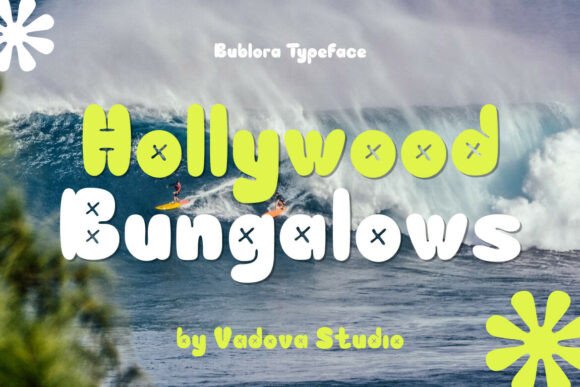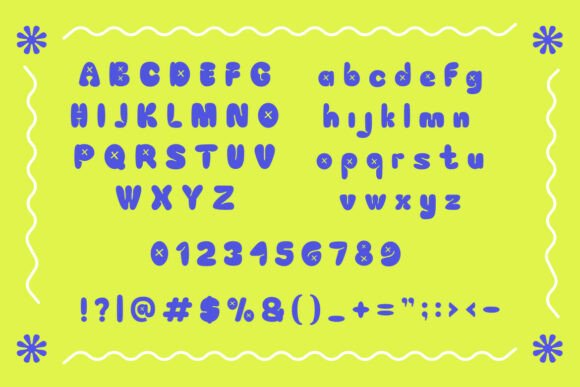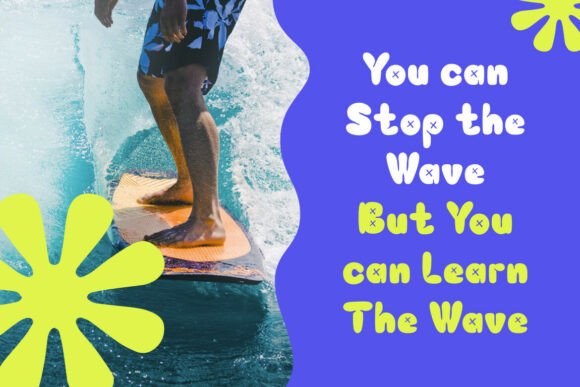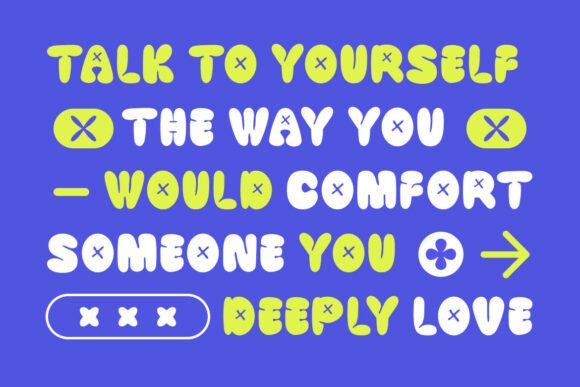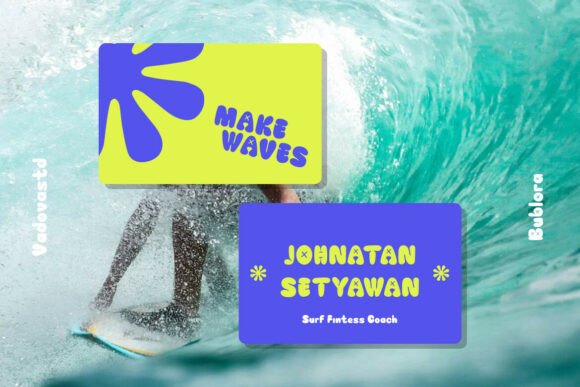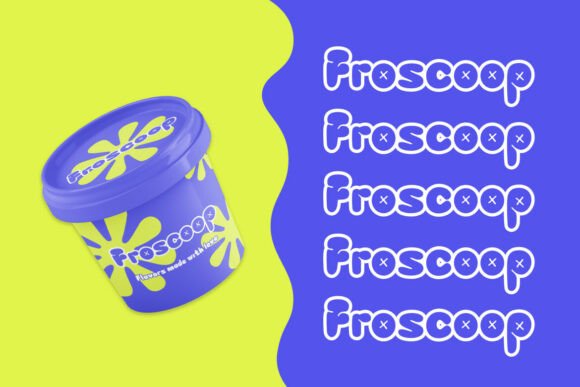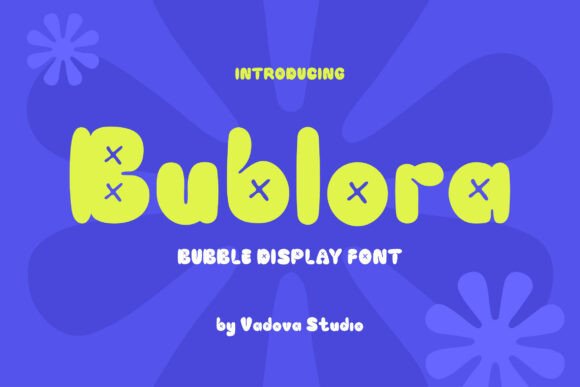
Bublora Font: Add a Pop of Personality to Your Designs
Are you tired of using the same old fonts in your designs? Do you want to add a touch of fun and personality to your projects? Look no further than Bublora Font! This exciting new font is the perfect choice for designers and crafters who want to bring a youthful and energetic vibe to their work.
The Personification of Fun
Bublora Font is the personification of fun, featuring chunky, inflated letterforms that feel like they were plucked right out of a colorful dream. The font’s soft, bouncy, and undeniably cheerful design makes it perfect for projects that need to feel youthful and energetic. Whether you’re working on sticker designs, vibrant posters, or playful brand identities, Bublora brings a lighthearted, “squishy” aesthetic that captures the eye instantly.
Bublora Font is versatile and can be used in a variety of projects, including:
- Sticker designs: Add a fun and playful touch to your stickers with Bublora’s chunky, inflated letterforms.
- Vibrant posters: Create eye-catching posters that demand attention with Bublora’s bold and cheerful design.
- Playful brand identities: Give your brand a youthful and energetic personality with Bublora’s unique and fun font.
- Crafting projects: Add a personal touch to your crafting projects, such as handmade cards, gift tags, and scrapbooking pages.
Key Features of Bublora Font
Bublora Font has several key features that make it a must-have for designers and crafters:
- Chunky, inflated letterforms: Bublora’s unique design features chunky, inflated letterforms that add a fun and playful touch to any project.
- Soft and bouncy: The font’s soft and bouncy design makes it perfect for projects that need to feel youthful and energetic.
- Undeniably cheerful: Bublora’s cheerful design is sure to bring a smile to anyone’s face.
- Lighthearted and “squishy” aesthetic: The font’s lighthearted and “squishy” aesthetic makes it perfect for projects that need to capture the eye instantly.
Tips for Using Bublora Font
Here are some tips for using Bublora Font in your designs:
- Use it sparingly: Bublora Font is a bold and playful font, so use it sparingly to add a pop of personality to your designs.
- Pair it with other fonts: Pair Bublora Font with other fonts to create a unique and interesting design.
- Experiment with colors: Bublora Font looks great in bright and bold colors, so experiment with different colors to find the perfect combination for your design.
- Have fun: Most importantly, have fun with Bublora Font! Its playful design is sure to bring a smile to your face and inspire your creativity.
Bublora Font is a fun and playful font that’s perfect for designers and crafters who want to add a pop of personality to their designs. Its chunky, inflated letterforms, soft and bouncy design, and undeniably cheerful aesthetic make it perfect for projects that need to feel youthful and energetic. Whether you’re working on sticker designs, vibrant posters, or playful brand identities, Bublora Font is sure to bring a lighthearted and “squishy” aesthetic that captures the eye instantly. So why not give Bublora Font a try and see how it can add a touch of fun and personality to your designs?
Get Ready to Add a Pop of Personality to Your Designs
Get ready to add a pop of personality to your designs with Bublora Font! This exciting new font is the perfect choice for designers and crafters who want to bring a youthful and energetic vibe to their work. With its unique and fun design, Bublora Font is sure to inspire your creativity and take your designs to the next level.